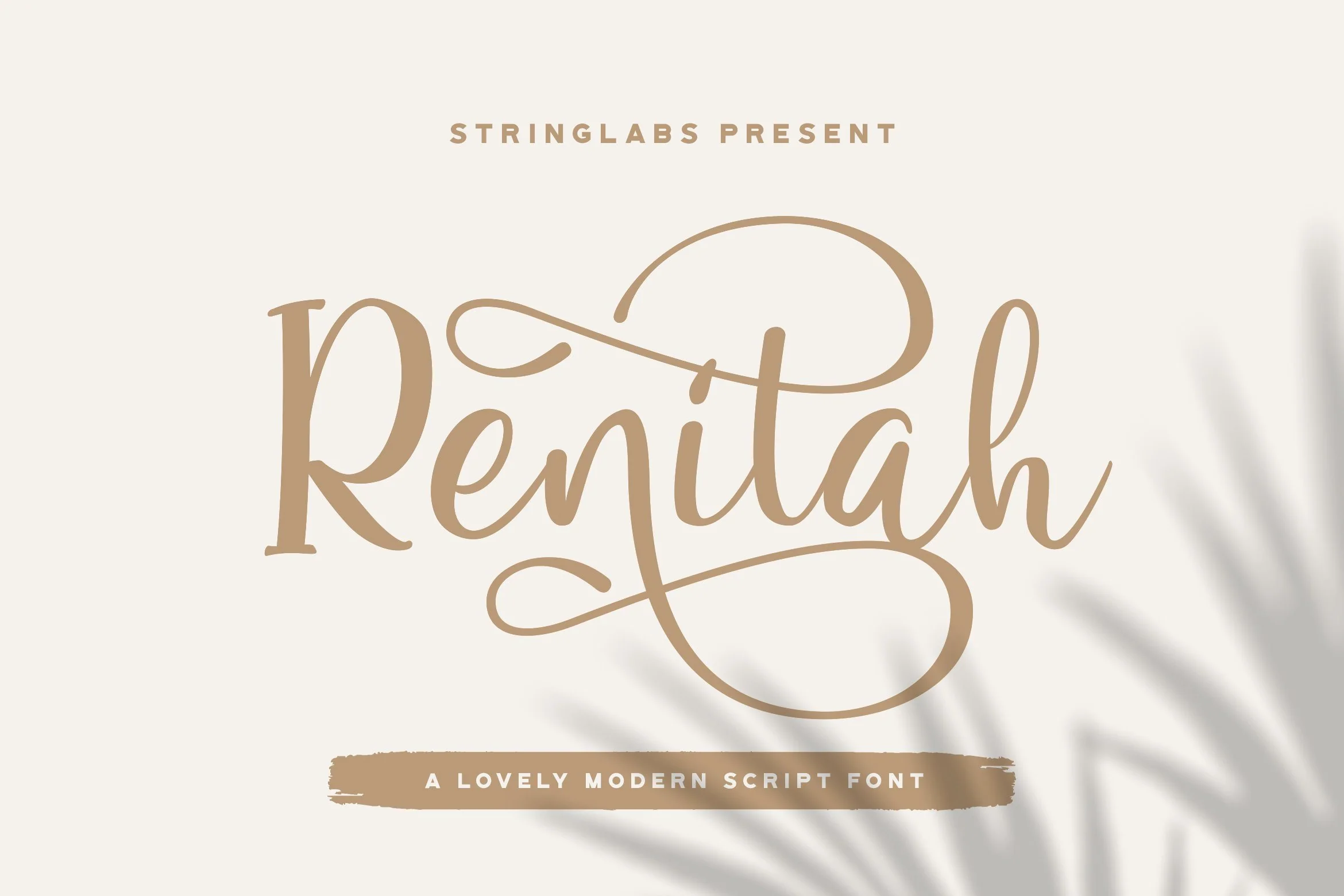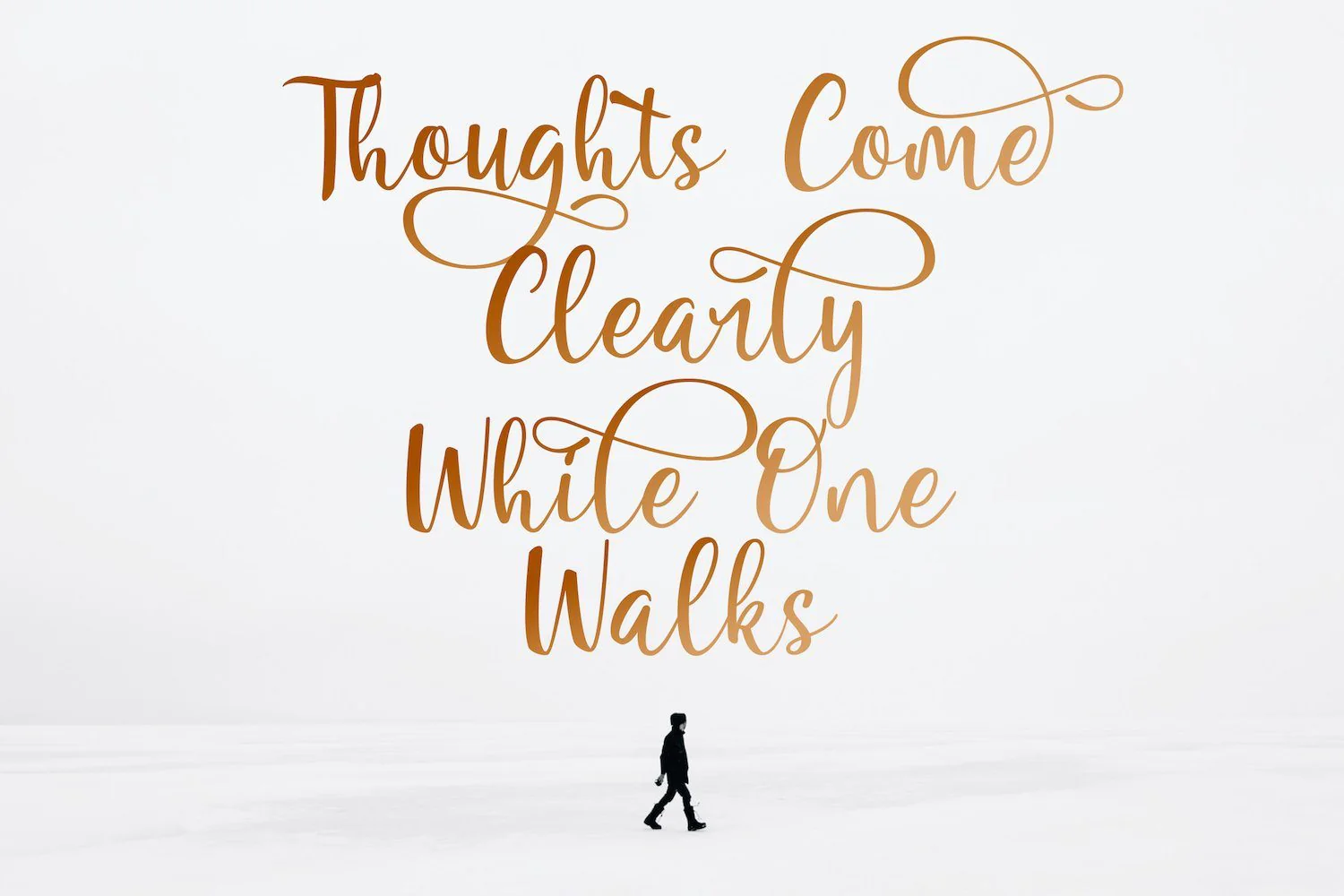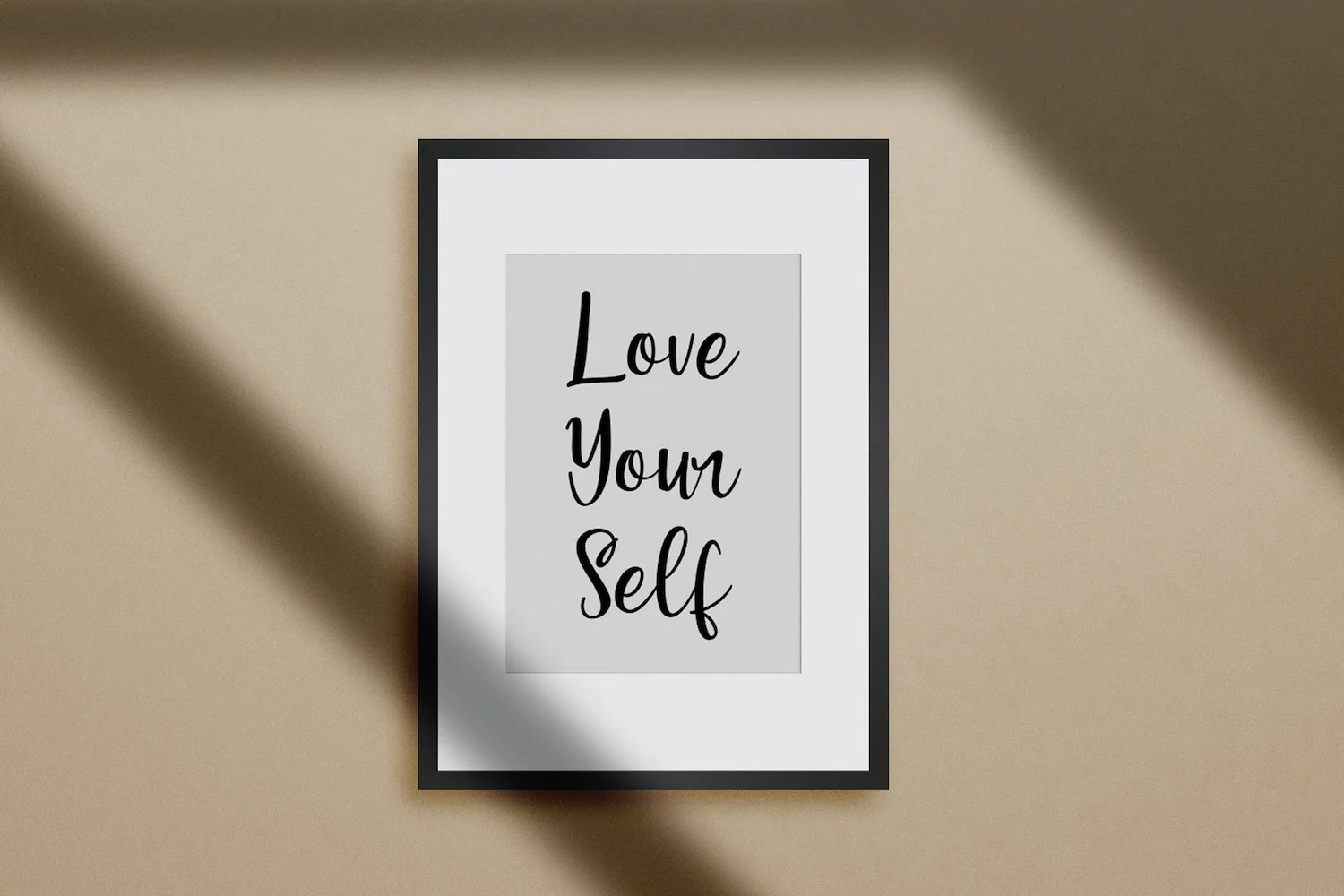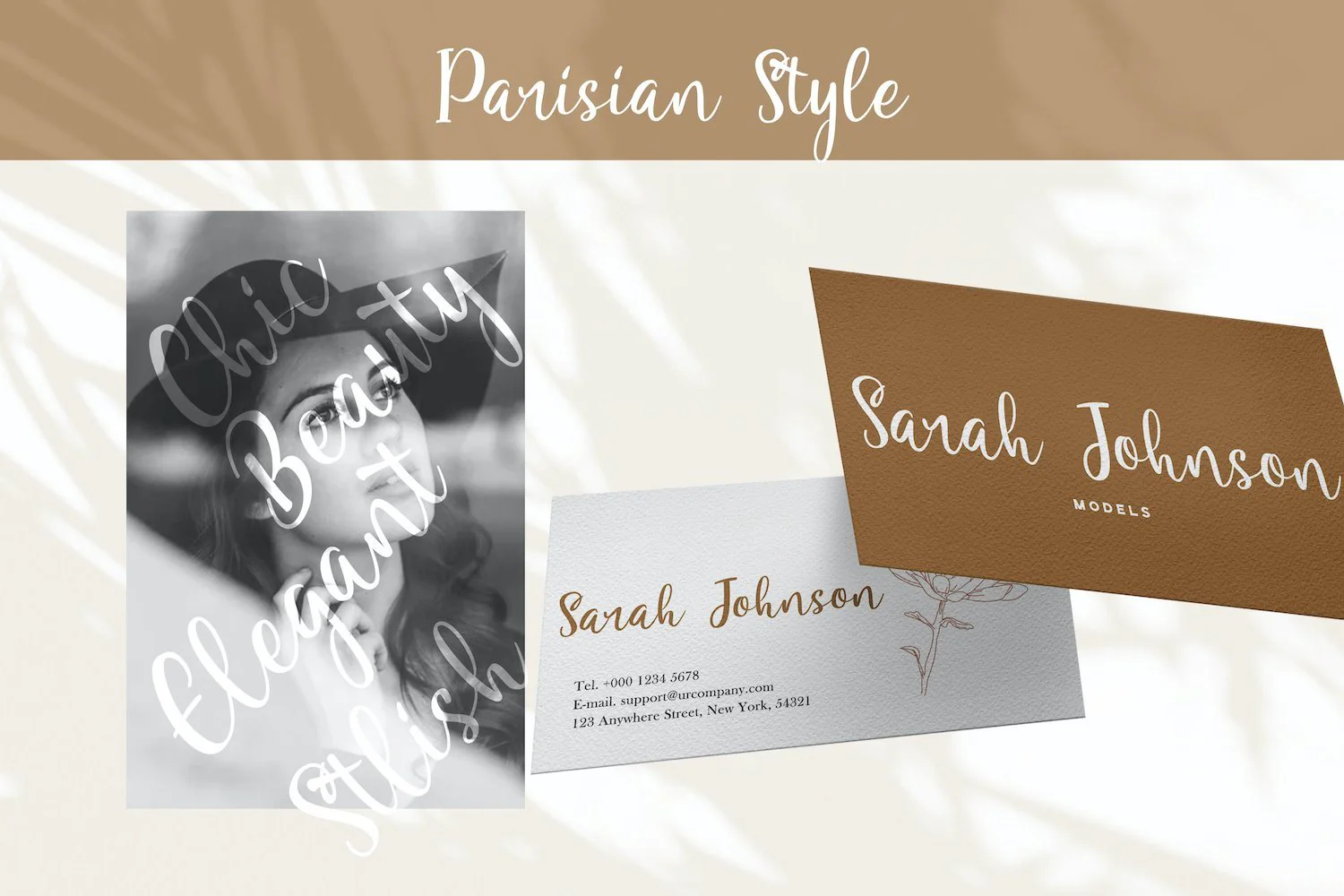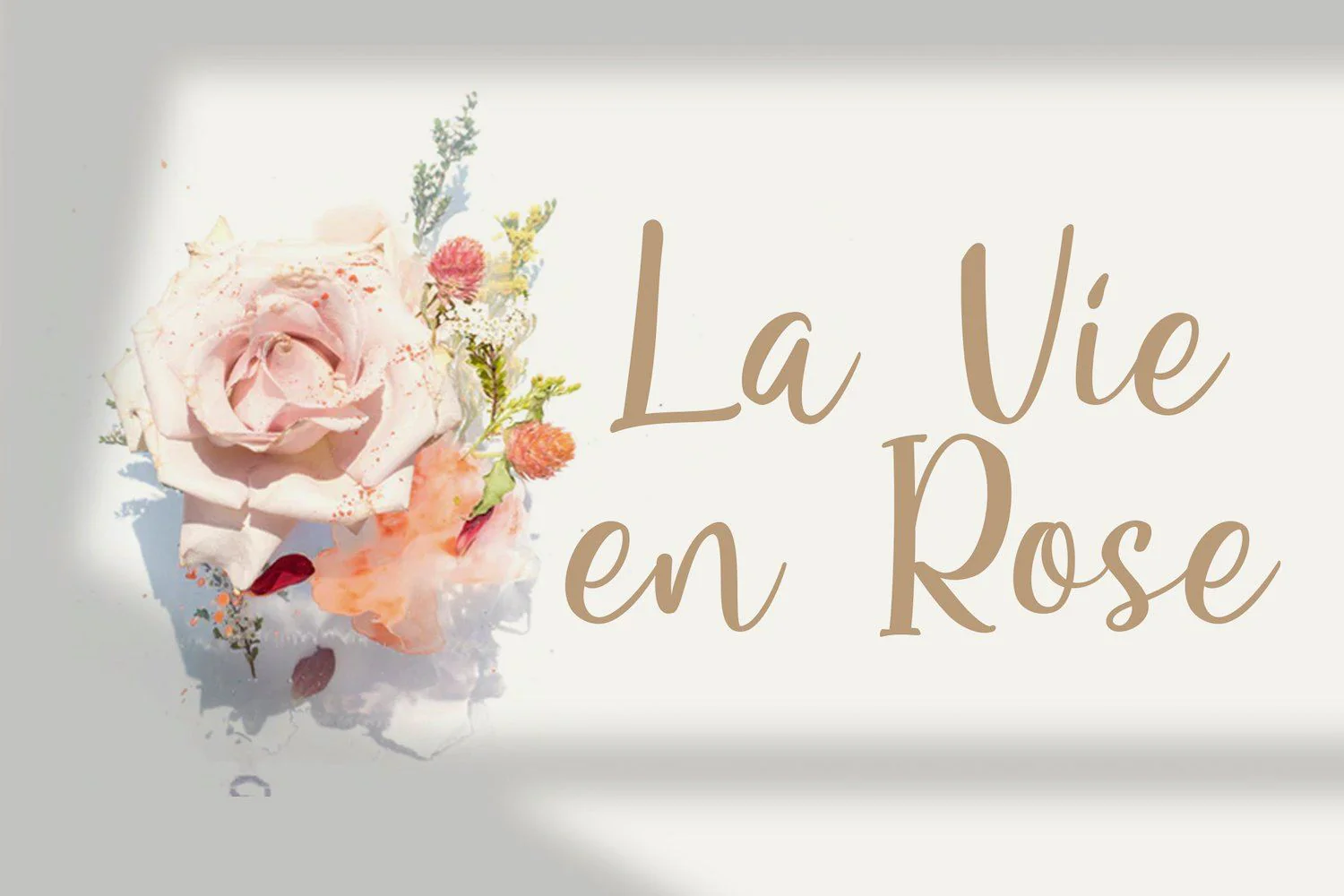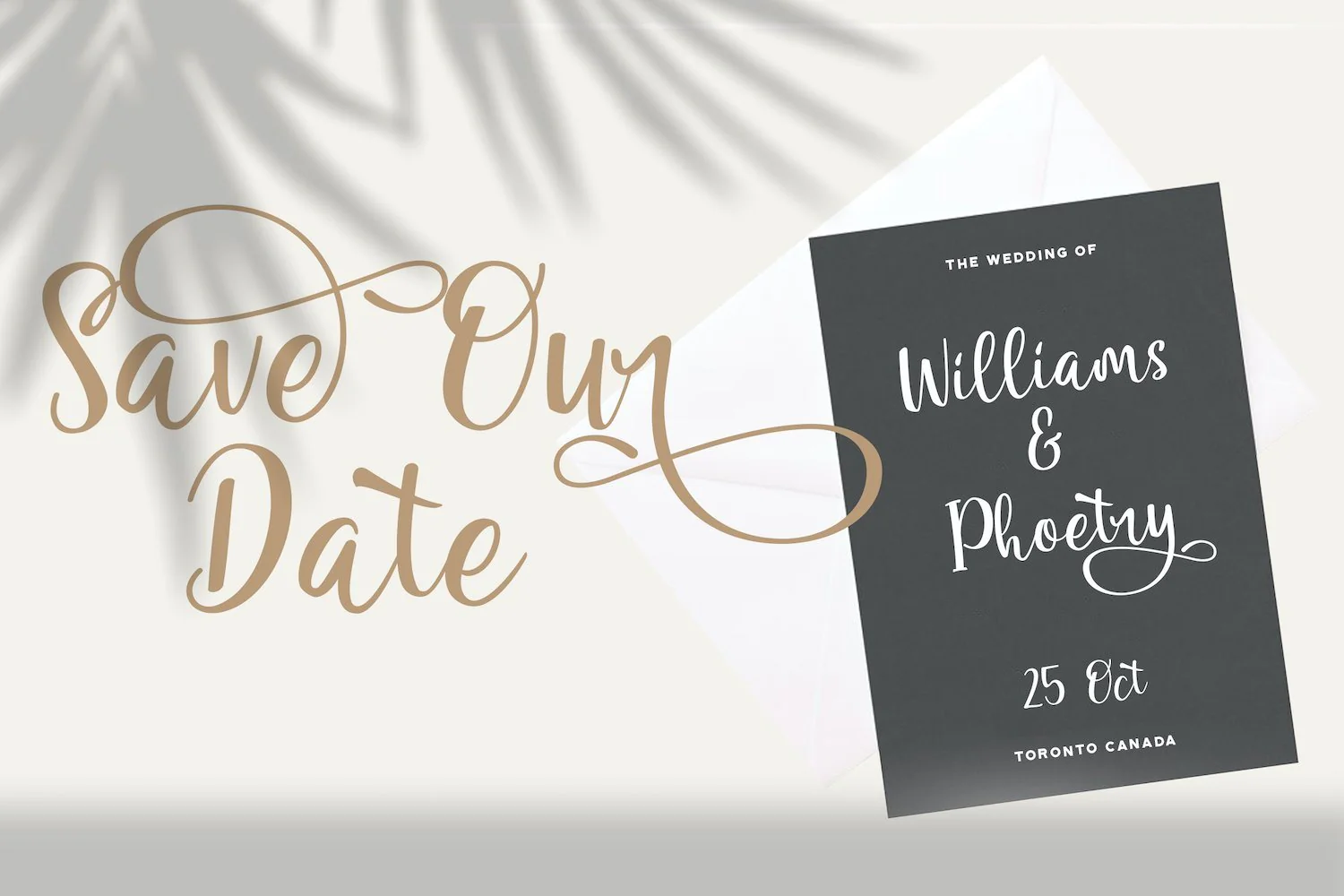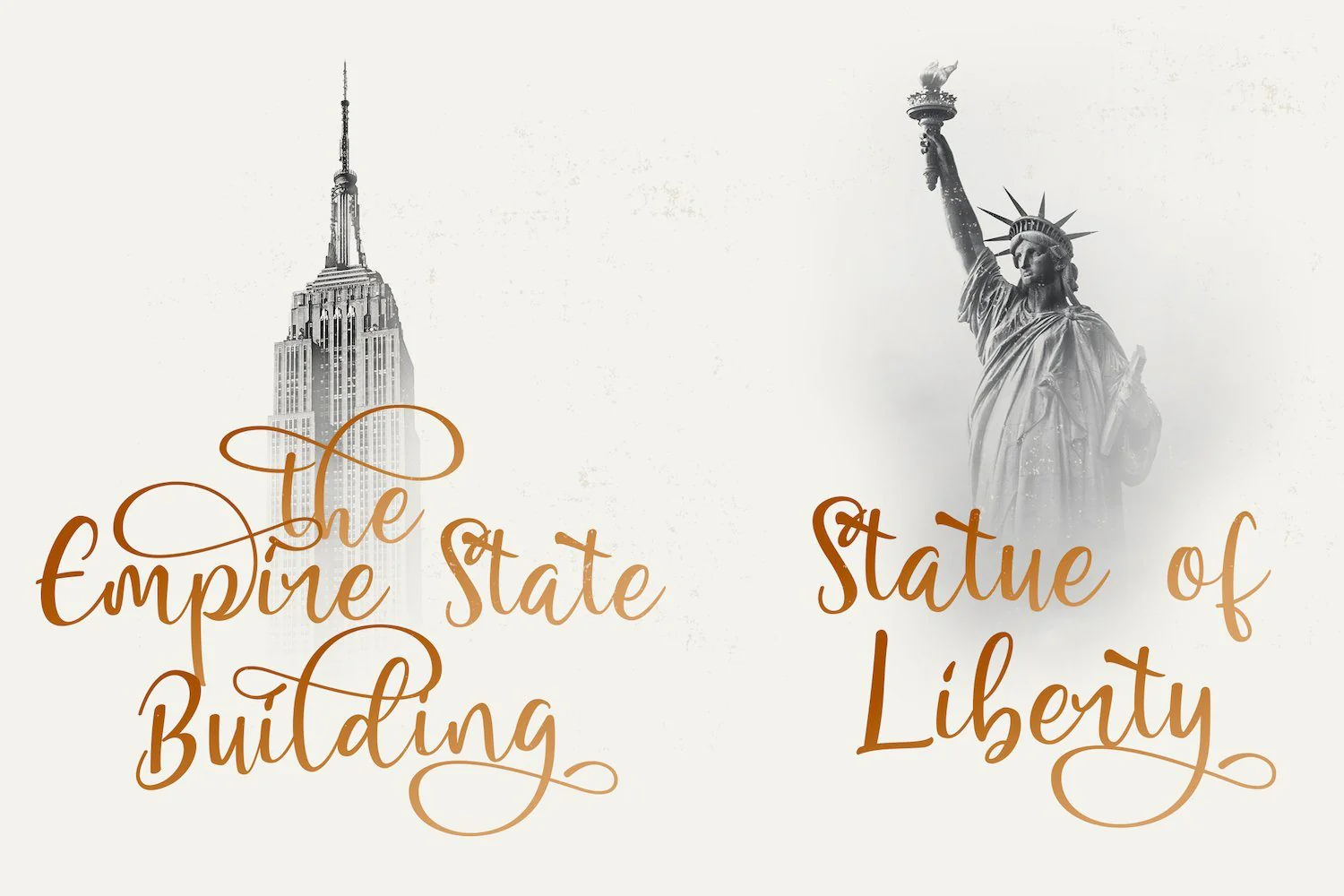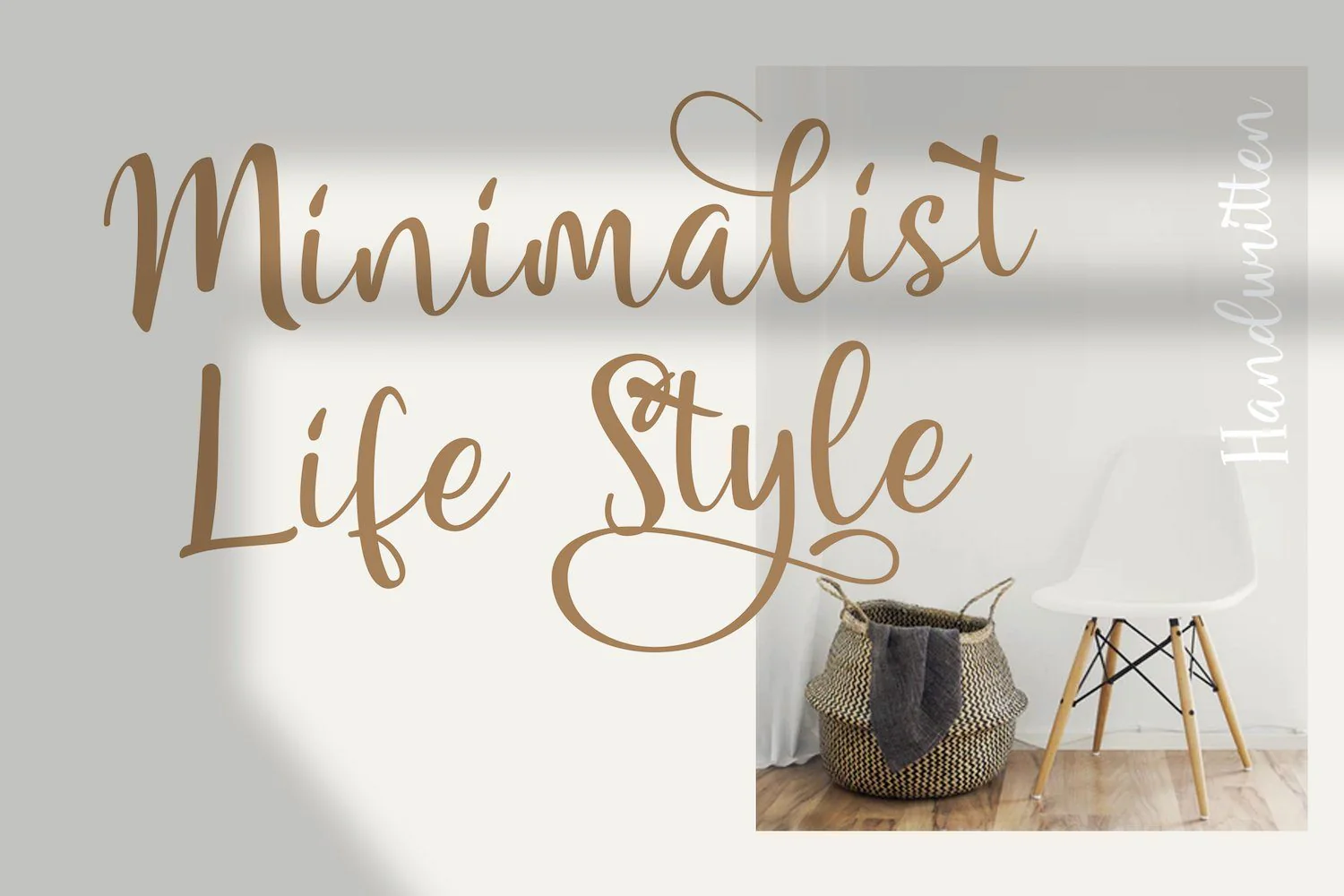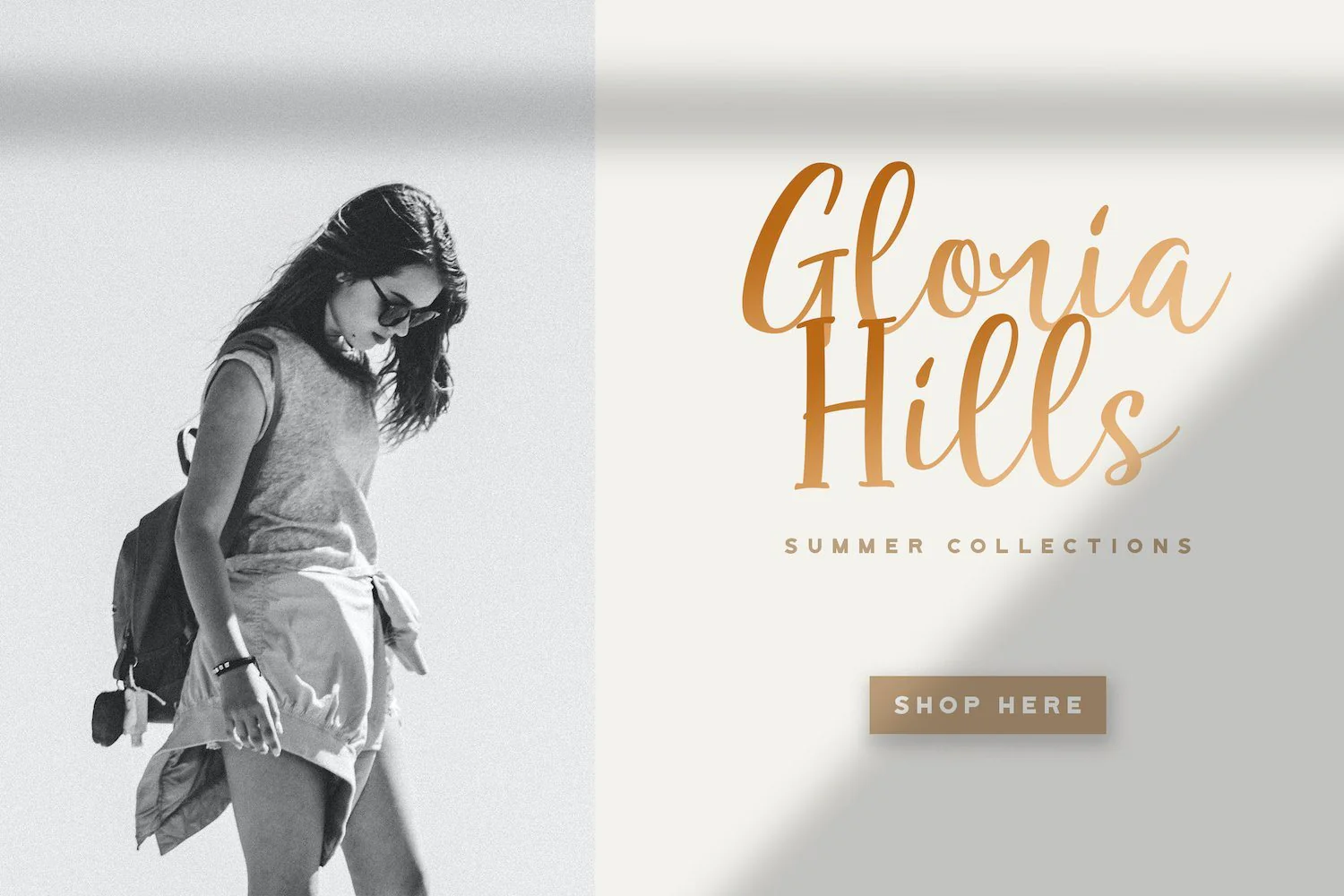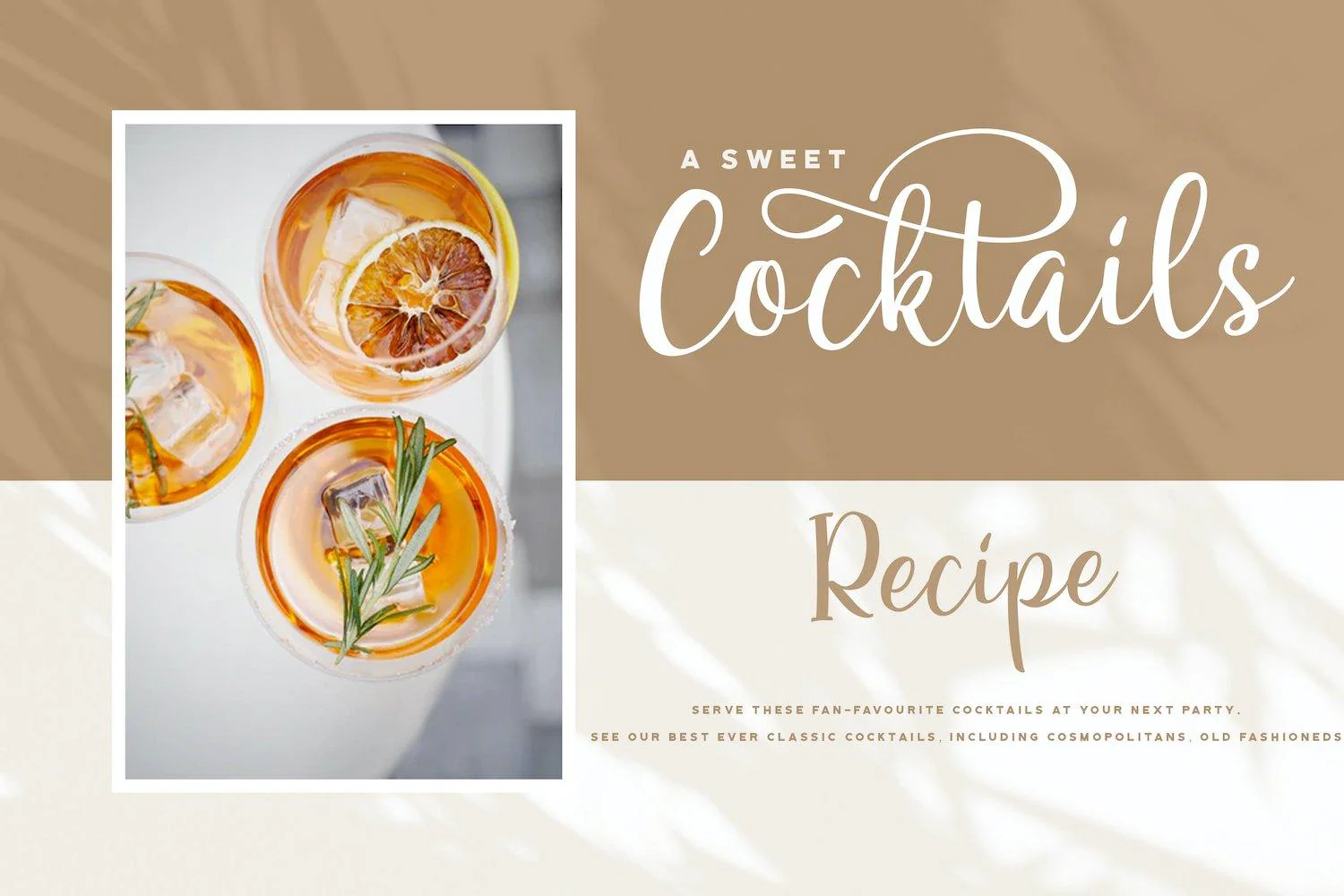
Renitah - Lovely Script Font
Introducing Renitah - Lovely Script Font
Renitah is a Script Font with Lovely Calligraphy Style. This font is perfect for fashion brand, wedding invitation, business card, logo brand, signature, and then calligraphy. This Font contains Elegant, Creative, Beautiful and has a Unique Concept.
Introducing Renitah - Lovely Script Font
Renitah is a Script Font with Lovely Calligraphy Style. This font is perfect for fashion brand, wedding invitation, business card, logo brand, signature, and then calligraphy. This Font contains Elegant, Creative, Beautiful and has a Unique Concept.